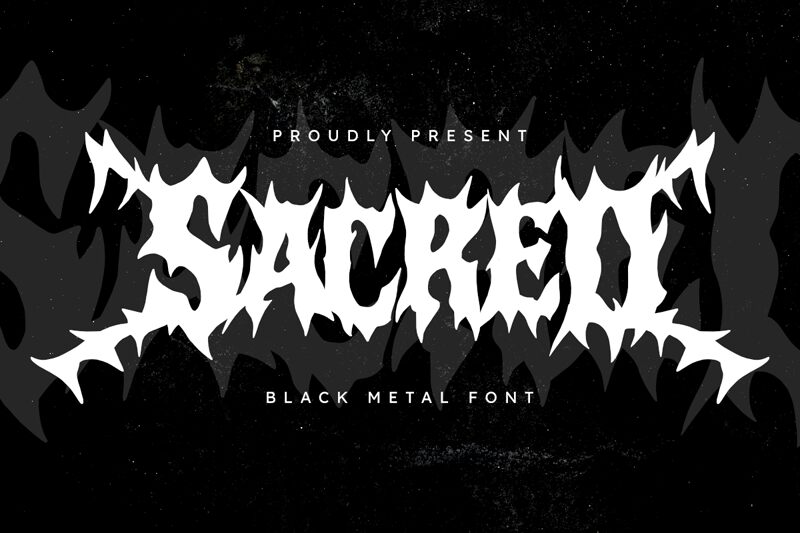
Sacred is a Gothic free font designed by Muhammad Yafinuha with a dark and intense character. The aggressive typeface achieves this with its mostly uppercase set of letters, which even when presented in a lowercase form still carry the same design. The elaborate letters are jagged and feature a set of sharp geometric corners in mind, bringing them to a striking finish.
Sacred is inspired by old English typography and creates the atmosphere of the dark ages, making it a great pick for music and album covers. It is also usable in fashion product labels, poster designs, film title sequences, or book covers. Posters, social media pages, branding, and packaging designs can easily capitalize on this dramatic font.
Sacred is a raw and wickedly sharp black metal font inspired by extreme underground music culture. With its aggressively spiked characters and brutal strokes, this font perfectly captures the dark, chaotic energy of black metal, death metal, and horror visuals.